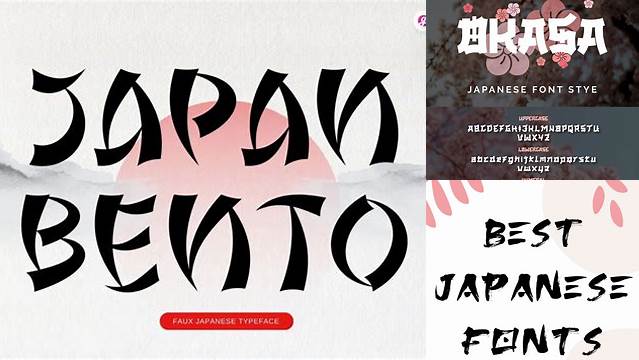
Free Japanese Fonts For Commercial Use: Top Picks
Hey guys! Are you on the hunt for some awesome free Japanese fonts for your commercial projects? Look no further! Finding the perfect font can be a game-changer for your designs, whether you're working on a website, a logo, or even a print ad. In this article, we're going to dive deep into the world of Japanese typography and explore some of the best options available for commercial use. Let’s get started!
1. Understanding Japanese Font Styles
Before we jump into the fonts themselves, it’s important to understand the different styles of Japanese fonts. This knowledge will help you choose the right font for the mood and message of your project. Japanese fonts mainly fall into two categories: Mincho and Gothic.
Mincho fonts are similar to serif fonts in Western typography. They have small strokes or serifs at the end of each character, giving them a formal and elegant look. These fonts are often used in books, newspapers, and official documents. For commercial projects aiming for a refined or traditional feel, Mincho fonts are an excellent choice. Imagine using them for branding a high-end Japanese restaurant or creating a sophisticated brochure for a cultural event. The delicate strokes and classic appearance convey a sense of elegance and history, perfect for projects that want to evoke a sense of tradition and quality.
Gothic fonts, on the other hand, are similar to sans-serif fonts. They have a clean and modern look, without the serifs. Gothic fonts are widely used in signage, posters, and digital interfaces. If you're looking for something bold and contemporary, Gothic fonts are the way to go. Think about using Gothic fonts for a tech startup's website or for a vibrant poster promoting a music festival. Their strong, clean lines make them incredibly versatile and effective for grabbing attention and conveying a sense of modernity and energy. The simplicity of Gothic fonts also ensures readability across various mediums, making them a dependable choice for any project.
Beyond these two main styles, there are also various display fonts and handwritten styles that can add a unique touch to your designs. These can range from playful and whimsical to serious and artistic, offering a broad palette for creative expression. Understanding these nuances will allow you to select a font that not only looks good but also aligns perfectly with your brand's personality and message.
3. Best Free Japanese Fonts for Commercial Use
Alright, let's get to the good stuff! Here are some of the best free Japanese fonts that you can use for your commercial projects. Remember to always double-check the specific license for each font to ensure it fits your needs.
3.1. M PLUS Rounded 1c
M PLUS Rounded 1c is a fantastic Gothic font that features rounded corners, giving it a friendly and approachable feel. This font is incredibly versatile and works well in a variety of applications, from websites to print materials. Its soft edges make it particularly suitable for designs aimed at a younger audience or projects that need a touch of warmth. Imagine using M PLUS Rounded 1c for a children's book, a community event poster, or a website for a family-friendly business. Its readability and gentle appearance make it a reliable choice for projects where clarity and friendliness are key.
The clean, sans-serif structure of M PLUS Rounded 1c ensures that it remains legible even at smaller sizes, making it ideal for body text as well as headlines. Its rounded corners prevent the font from feeling too harsh or sterile, providing a welcoming aesthetic that can enhance the overall tone of your design. This font also supports a wide range of characters, including kanji, hiragana, and katakana, making it a comprehensive choice for Japanese typography. For projects that require a blend of modernity and approachability, M PLUS Rounded 1c is a standout option.